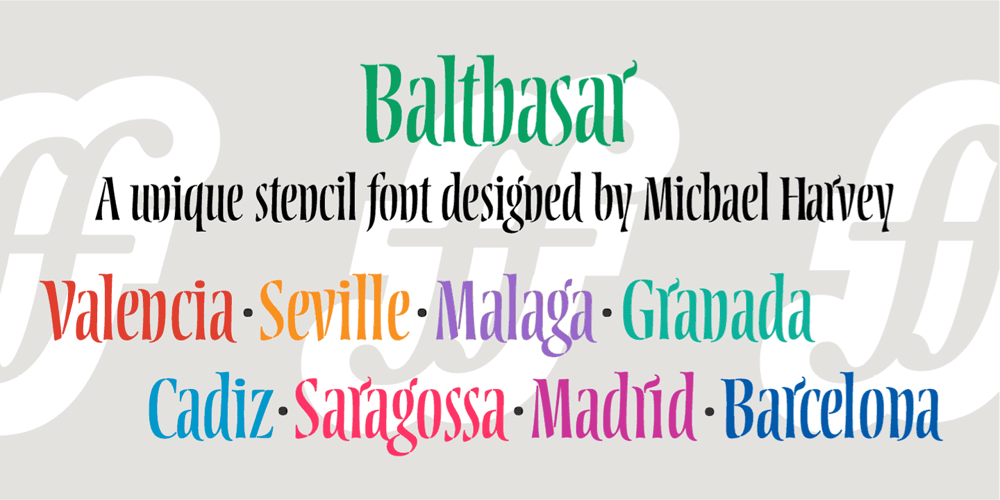
Balthasar Font Family was designed by Michael Harvey, Andy Benedek and published by Fine Fonts. Balthasar contains 1 styles and family package options. Balthasar is a very distinctive, stencil-type display font. Its letterforms originally appeared on a lettered book jacket by Michael Harvey. Its highly condensed letterforms being very economic in the use of space. The augmented, Balthasar Plus version has many alternative characters and ligatures, together with Opentype features for their automatic substitution where the application in which they are used permits.